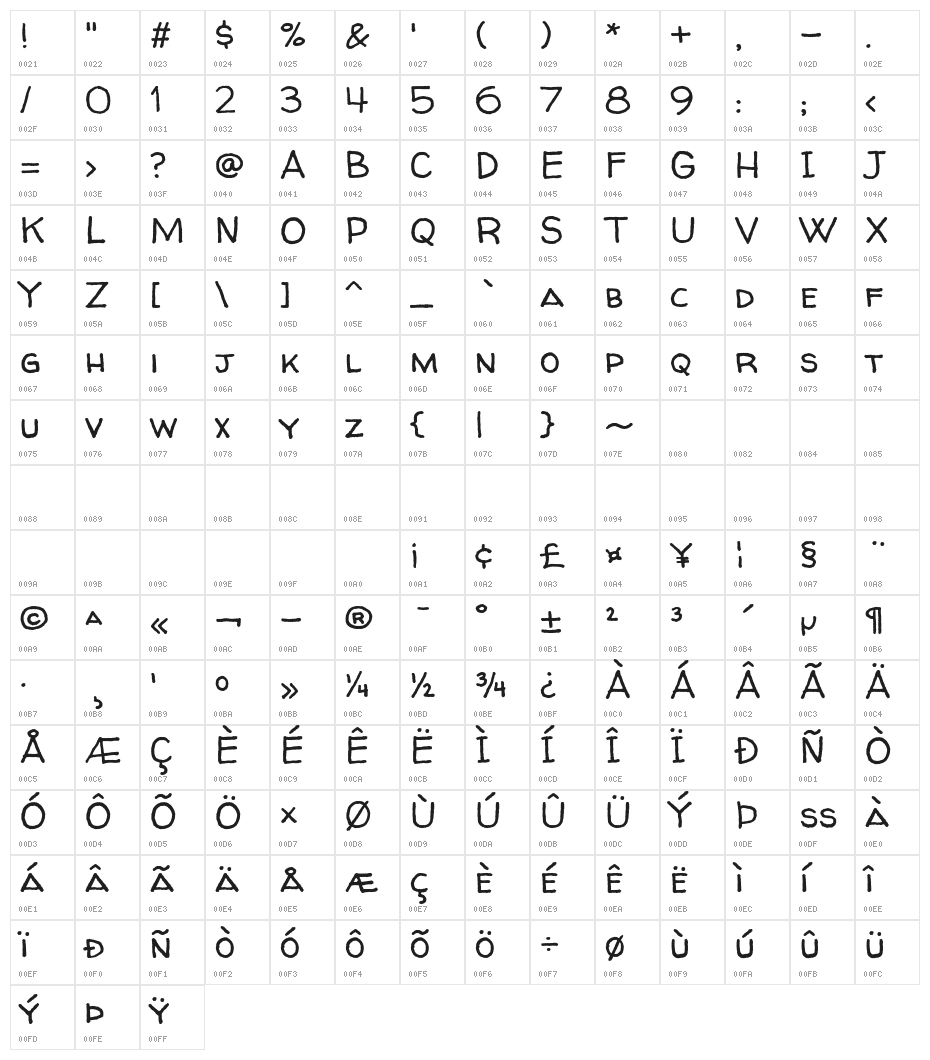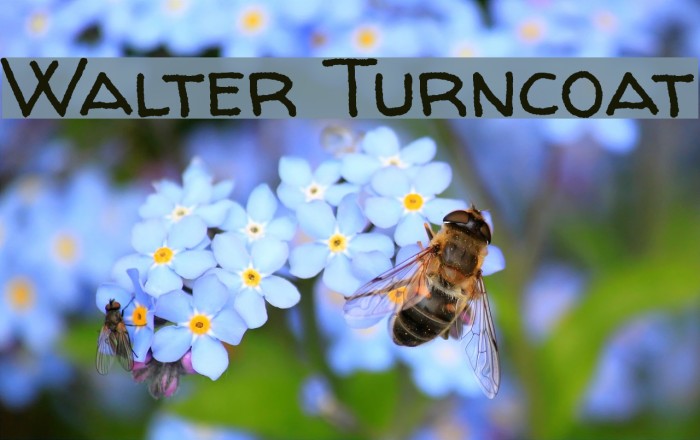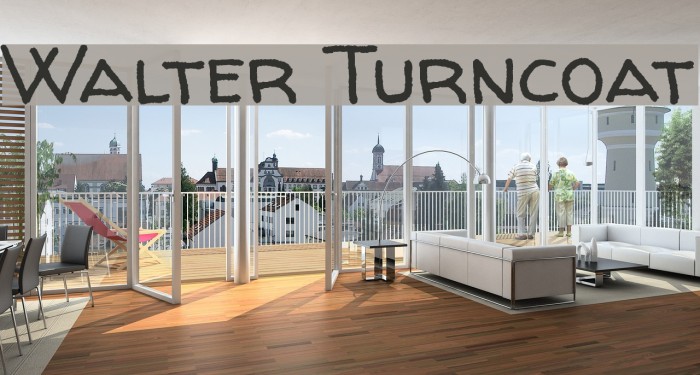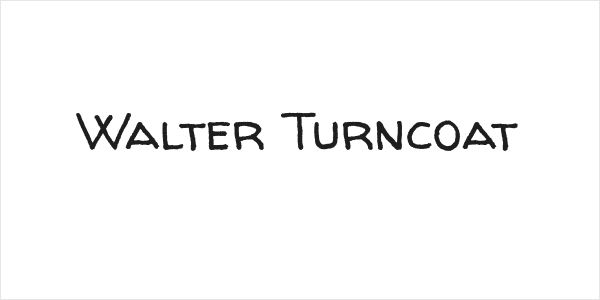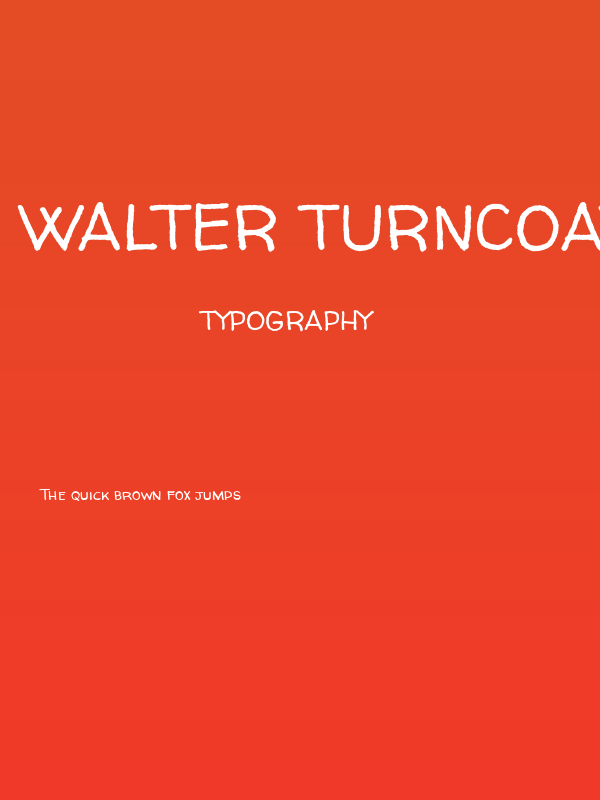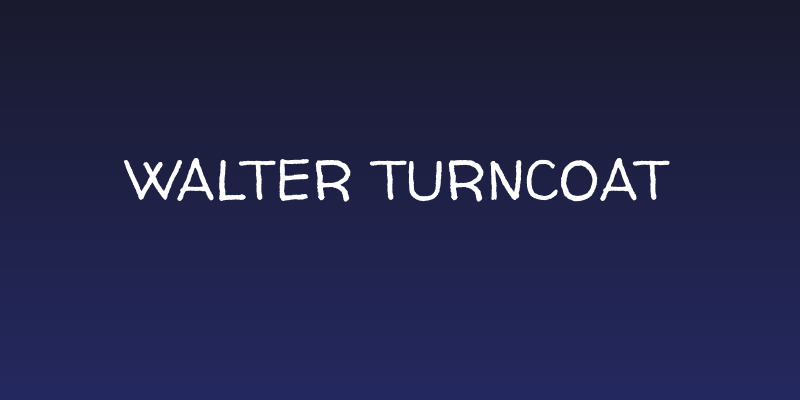
Walter Turncoat Font
Walter Turncoat Description
This font features a playful and informal handwritten style, characterized by its uneven strokes and casual appearance. The letters have a slightly rough texture, giving them a hand-drawn feel. The uppercase and lowercase letters maintain a consistent style, with rounded edges and a slight slant, adding to the font's whimsical nature. The numbers and special characters follow the same design principles, ensuring a cohesive look across all glyphs. This font is ideal for projects that require a personal touch or a fun, approachable aesthetic.
| Proposed Projects | Ideal for greeting cards, children's books, playful branding, and informal invitations. |